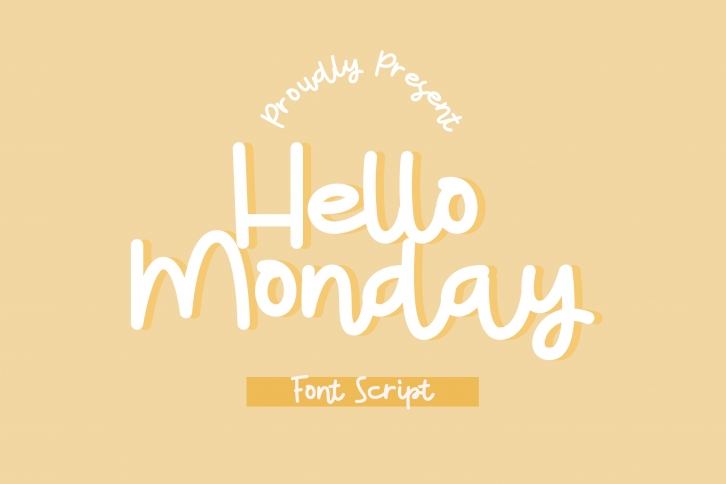
Hello Monday is a beautiful font that was designed by Ongtype co. It's a great choice for designers and creatives who need such a font. It was released on May 27, 2021 and the file size is 13.44 MB. Hello Monday may give a more youthful, expressive and casual look to your project. It is a very beautiful, refined, elegant, and high-quality font.